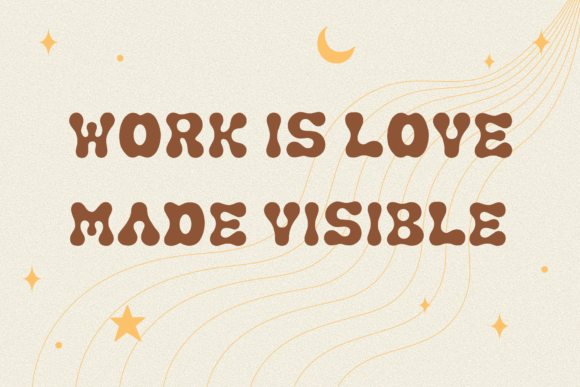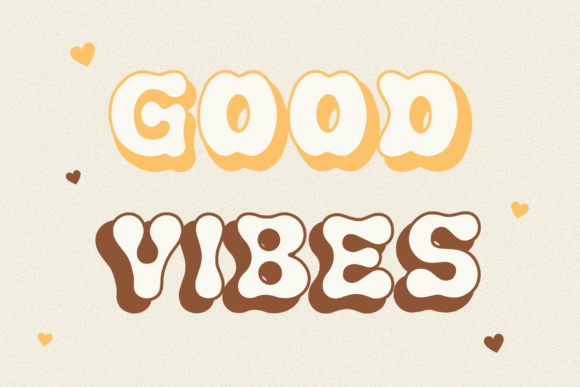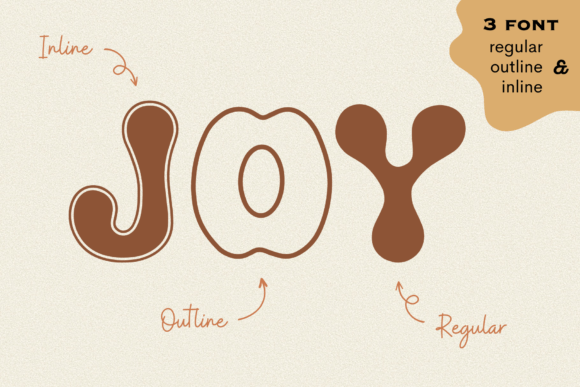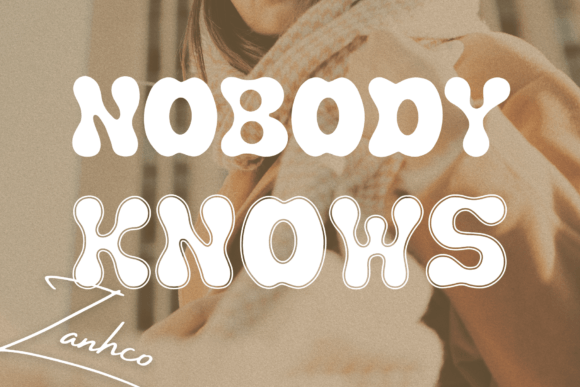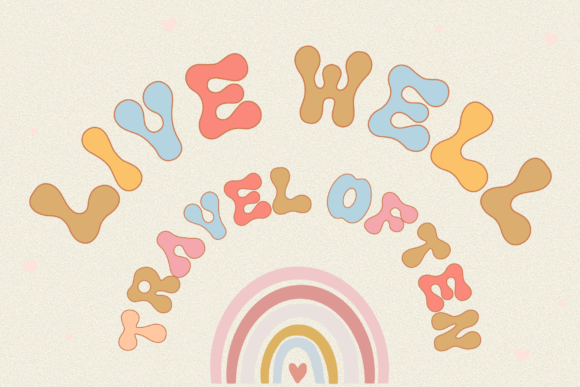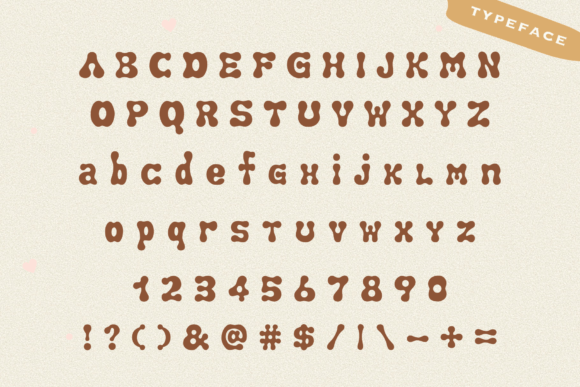
Introduction to Shamu Font
Have you ever stared at a blank canvas, searching for the perfect font to bring your creative project to life? I’m sure you have! We’ve all been there, scrolling through design resources, trying to find that one font that screams ‘cool’ and ‘trendy’ at the same time. And then, it hits you – the perfect font to elevate your design game.
Meet the Shamu Font, a modern, retro, and Y2K-style font that’s not only on-trend but also incredibly versatile in every project. Whether you’re working on product branding or content use, creating a display headline, or designing packaging for your latest project, the Shamu Font will surely bring a super cool feel to your piece of work effortlessly!
As designers, we’re always on the lookout for high-quality, free downloads that can add that extra oomph to our designs. And, let’s be honest, a font with a transparent background can make all the difference in making our designs stand out. With the Shamu Font, you can say goodbye to boring designs and hello to a world of creative possibilities!
Key Features of Shamu Font
- High-quality, vector-based design for a crisp and clear display, suitable for various creative projects.
- Designed with a modern and playful touch, perfect for projects requiring a unique and creative flair.
Honest Review: Shamu Font
I recently stumbled upon the Shamu Font, a design resource that has both impressed and frustrated me in equal measure. On the one hand, I’m glad to see high quality fonts available for free download – it’s a game-changer for creative projects where budget can be a constraint.
- ✨ The font is highly customizable, with a transparent background that makes it easy to layer with other design elements.
- ✨ The font’s unique aesthetic is perfect for adding a touch of whimsy to designs, from branding materials to social media graphics.
However, I’ve encountered a few limitations:
- ⚠️ The font can be a bit overused, so it’s essential to use it thoughtfully and not rely on it too heavily in your design.
- ⚠️ The font’s unique style may not be to everyone’s taste – some designers may find it too playful or quirky.
Overall, I’d say the Shamu Font is a solid addition to any designer’s toolkit. While it’s not perfect, its high quality and free download make it a great resource for creative projects. With a little creativity and restraint, it can be a valuable asset in your design arsenal.
The Shamu Font is a free design resource ideal for creative projects requiring a high-quality, modern font. This versatile font features a transparent background, making it suitable for various applications.
To maximize the use of the Shamu Font, experiment with different font sizes, colors, and combinations to achieve a unique design aesthetic.
Common Use Cases for Shamu Font
The Shamu Font is commonly used in graphic design, branding, and digital marketing projects, particularly for creating modern, minimalist logos and typography.